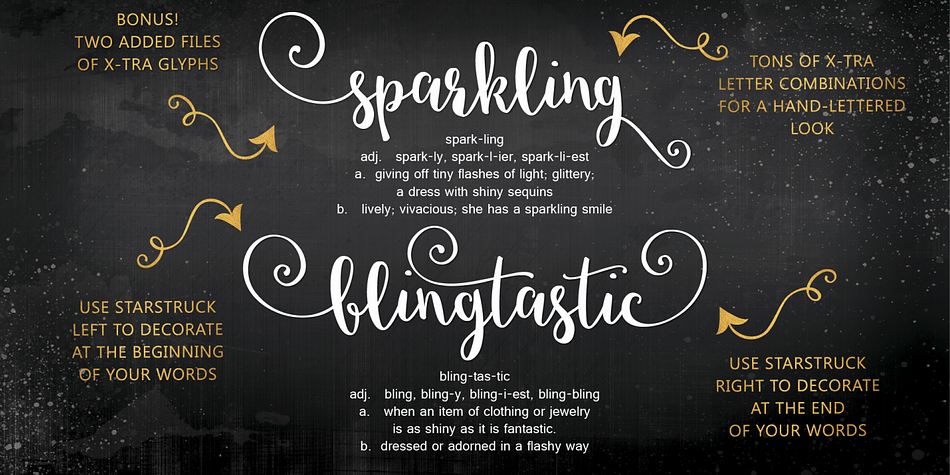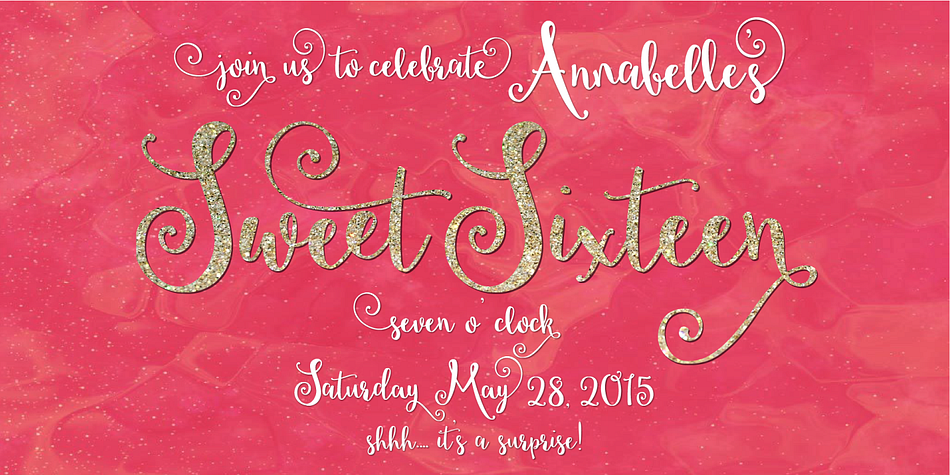
Starstruck is a script and modern calligraphy font family. This typeface has four styles and was published by Emily Spadoni.
Introducing Starstruck! A hand-lettered script with tons of x-tra characters! Sparkling, charming, feminine, sophisticated, and super swirly.
And I’ve done it again. Even More Bling! Three added files of additional decorative glyphs, many additional common letter combinations, and even the multi-lingual glyphs are all decorated.
Use Starstruck Left and Starstruck Right to create your own decorated word styles. In total hundreds of swirly letter combinations, creating an authentic hand-made, hand-lettered style text.
It’s super easy to use. Just highlight the letter you want to change and choose Left or Right. Many of the alternates have swirls that dip below the baseline and will fit nicely in the middle of the words. too!